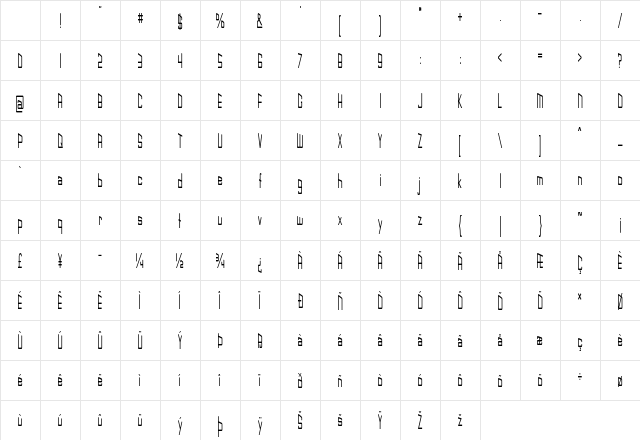
Complete Slider Extra-condensed Regular glyph index. Displaying only characters natively supported by Slider Extra-condensed Regular font.
Slider is a composed and adaptable typeface that performs quietly and consistently across a wide range of design contexts. Its narrow stance lets it pack a punch even in space-constrained designs.